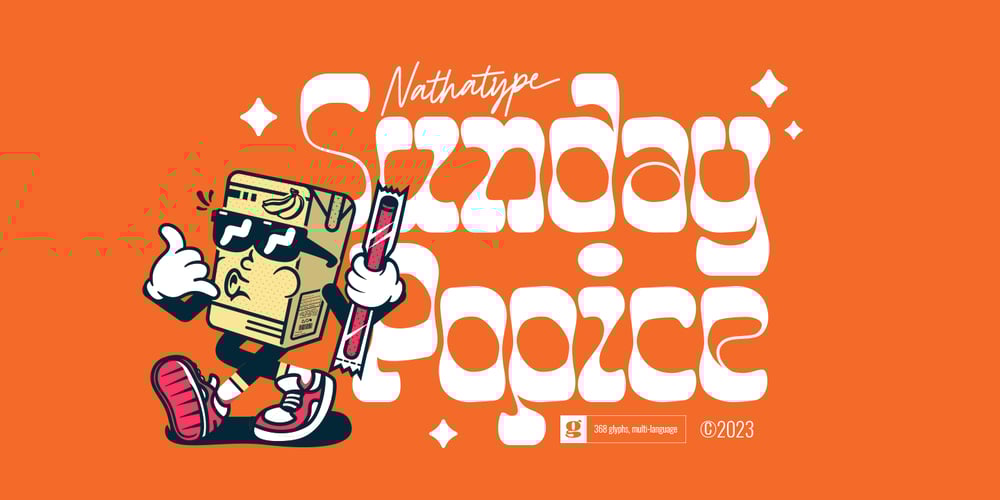
Sunday Popice
Sunday Popice font
Sunday Popice Font Family was designed by Donis Miftahudin and published by Nathatype. Sunday Popice contains 3 styles and family package options. Sunday Popice is a delightful display font that brings a dose of cuteness and whimsy to your designs. With its rounded shapes and high contrast, this typeface exudes a unique charm that is perfect for adding a touch of playfulness to any project. Designed with love and attention to detail, Sunday Popice captures the essence of childlike joy and innocence. Each character is carefully crafted with rounded edges, creating a friendly and approachable appearance. The high contrast between thick and thin strokes adds a dynamic and lively quality to the font, making it truly stand out. This font’s rounded and soft shapes evoke a sense of warmth and coziness, reminiscent of a Sunday afternoon spent in the company of loved ones. Because of the unique style, for the best readability use this font at large text sizes. Enjoy the available features here.Features: Multilingual Supports PUA Encoded Numerals and Punctuations Sunday Popice fits in children’s books, product packaging, greeting cards, headlines, logos, and any design project that requires a touch of whimsical elegance. Find out more ways to use this font by taking a look at the font preview.Thanks for purchasing our fonts. Hopefully, you have a great time using our font. Feel free to contact us anytime for further information or when you have trouble with the font. Thanks a lot and happy designing.